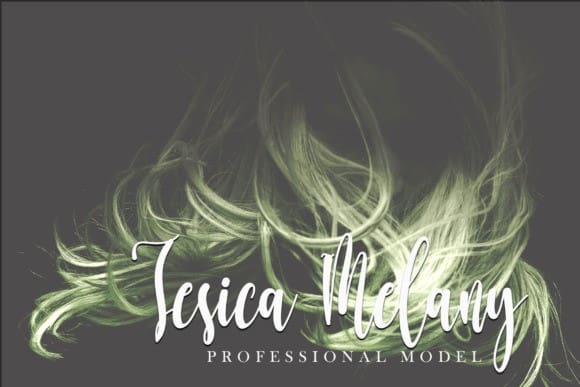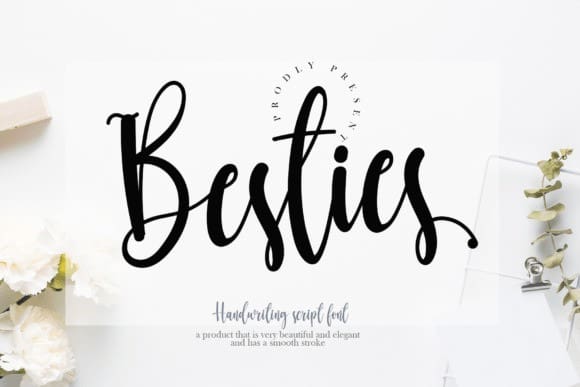
Besties Script Typeface
Besties Script Typeface, is a simple and quirky-looking handwritten font. It has a classy, elegant, and modern look that you can use for logos, branding, invitations, stationery, wedding designs, social media posts, and much more!